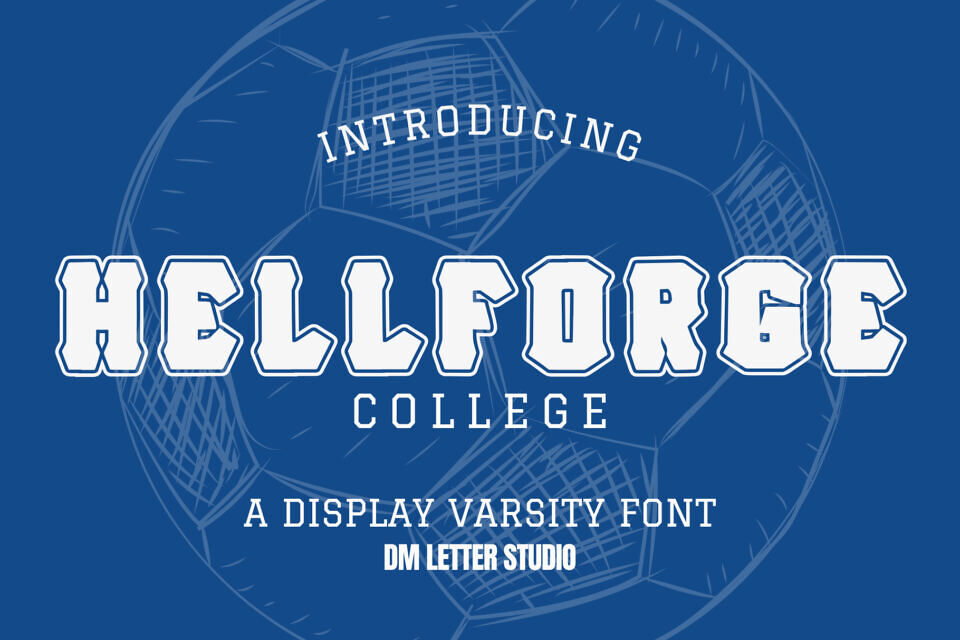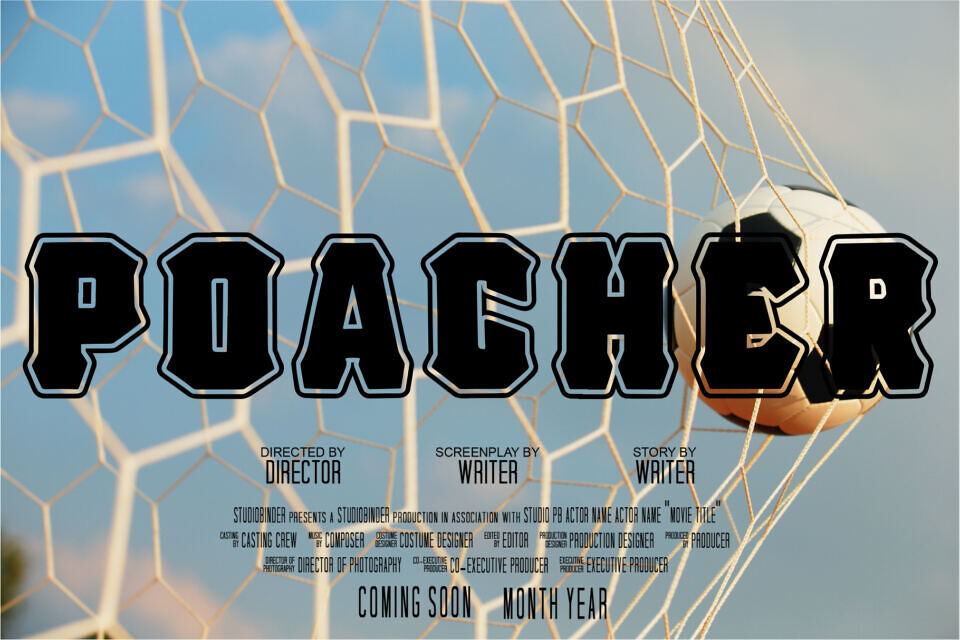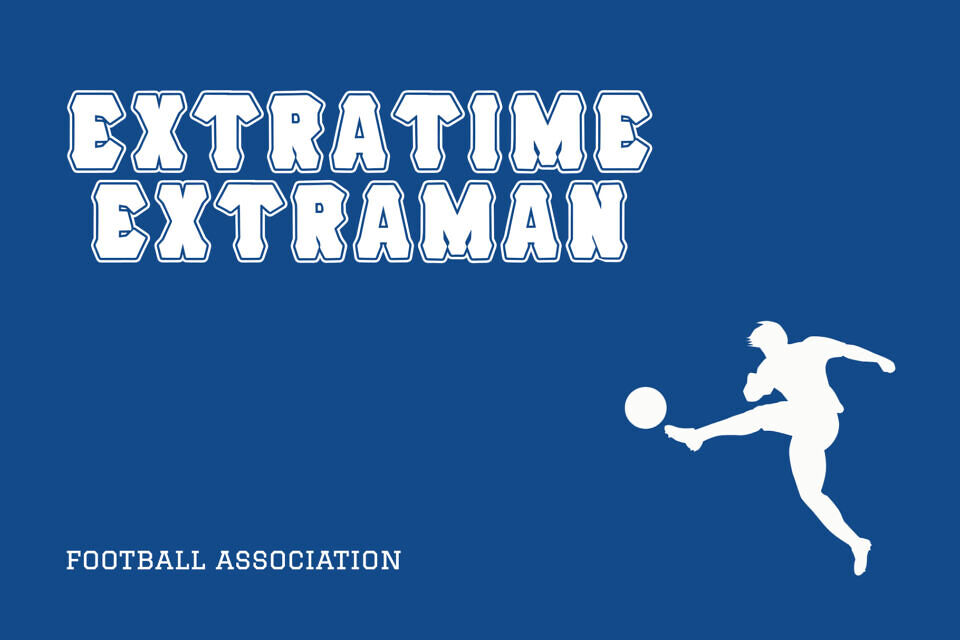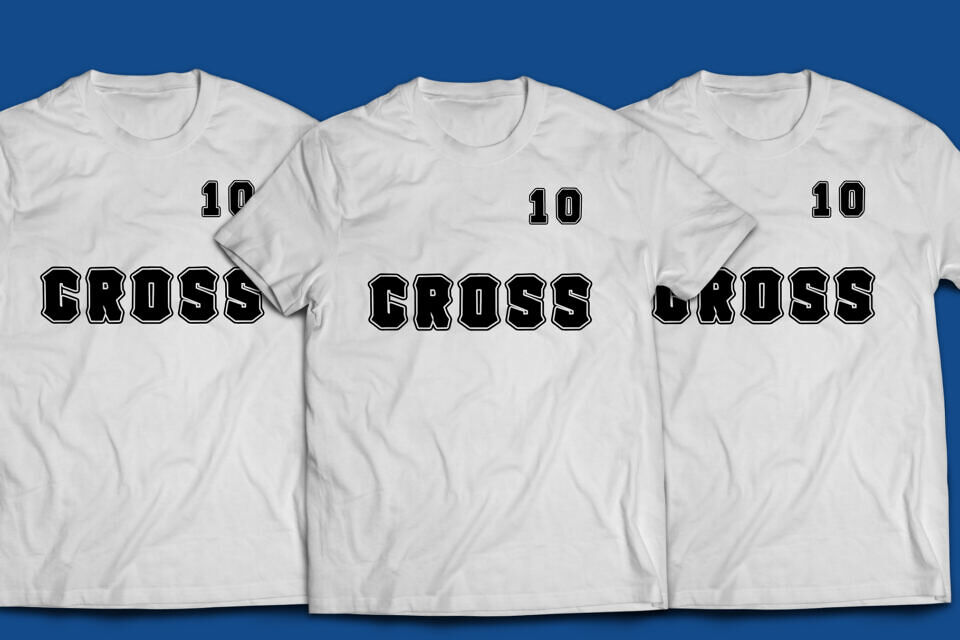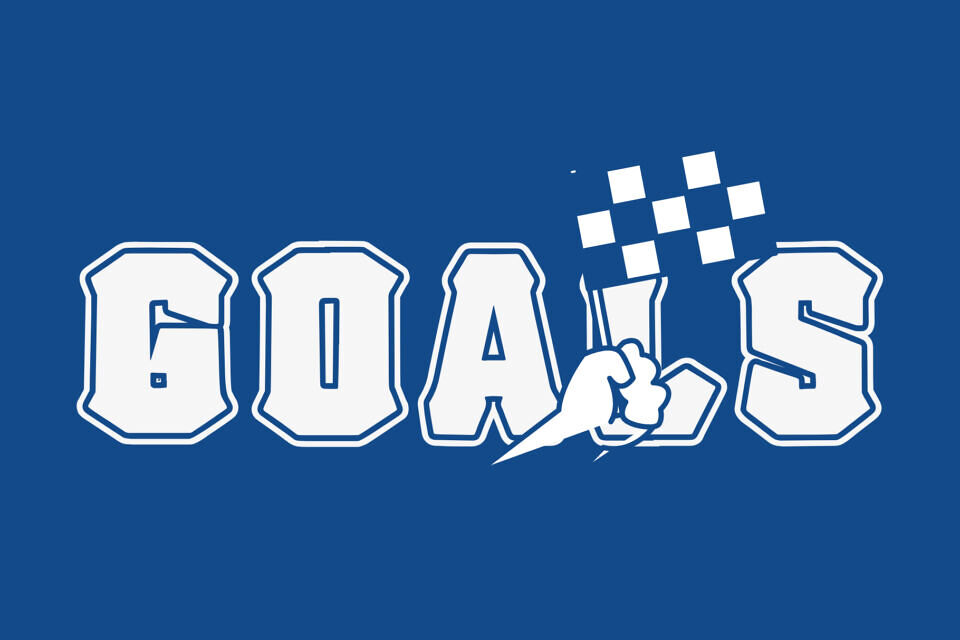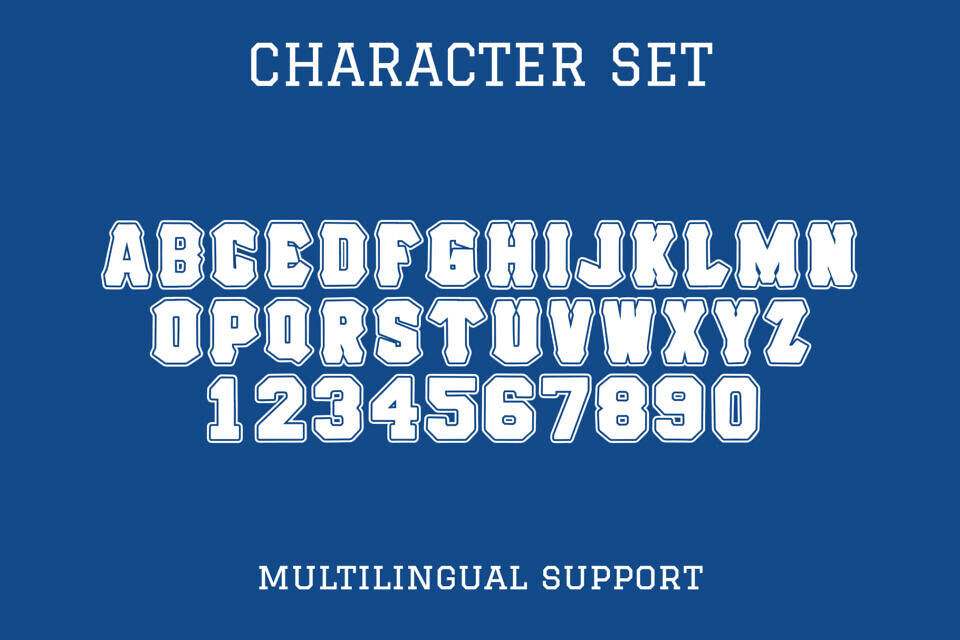
Hell Forge College brings tough varsity energy with an industrial edge. Letters feel bold, upright, and easy to read. Angled cuts add grit without hurting clarity. Because spacing is tuned for headlines, your layouts build fast in apparel, stickers, banners, and thumbnails. If you need a college font that looks fierce on game day, this one delivers.
Set punchy phrases like Game Day, Forge Pride, or city initials. Then add stitch edges, outline layers, or soft shadows to echo classic patches. Since the forms are sturdy, vinyl cuts and screen prints stay crisp on jerseys, caps, and hoodies. As a result, your shop can launch full sets for clubs, tournaments, and pep rallies in minutes.